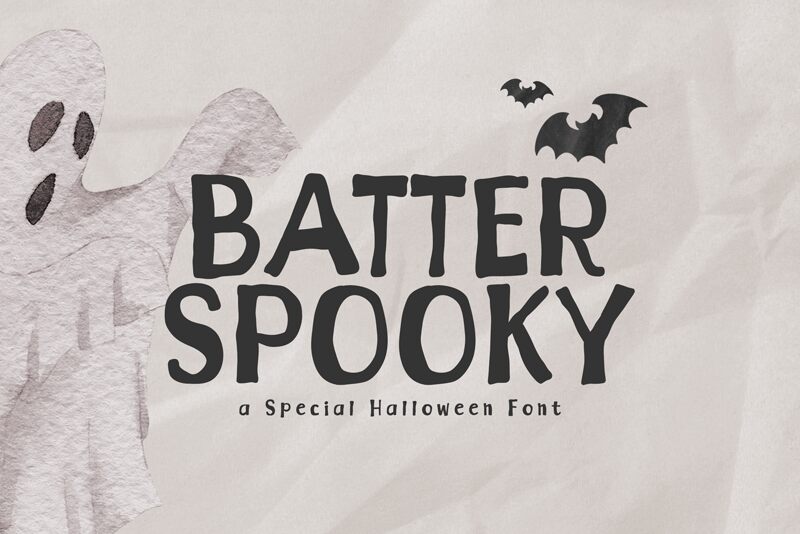
Batter Spooky
Batter Spooky font by Khurasan is a free bold halloween display font. Built for campfire chills without the nightmares, it leans into soft, blobby terminals and slightly wobbly strokes that look hand-inked and a bit gooey. The letters have a friendly bounce and roomy counters, giving it a playful creepiness that reads clearly on posters and packaging while keeping the vibe delightfully mischievous.
Using Batter Spooky, you’ll nail trick-or-treat posters, kids’ party invitations, pumpkin patch signs, haunted house flyers, seasonal social graphics, and candy labels. The chunky rhythm holds up at large sizes, and a touch of extra tracking adds breath and charm. Pair this free font with a clean, narrow sans for body copy to keep the headlines grinning center stage.